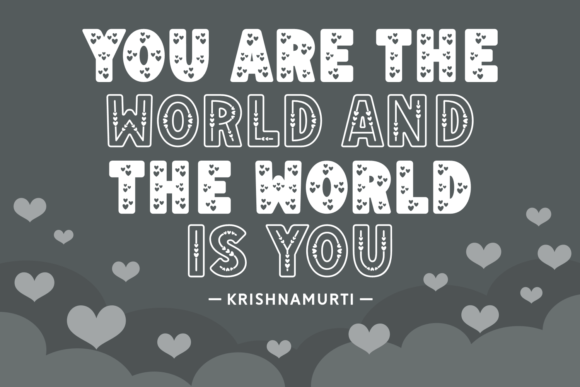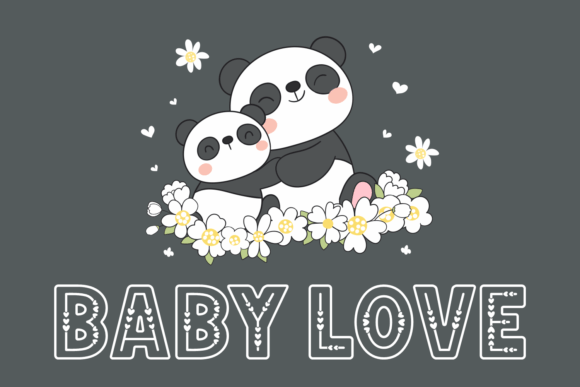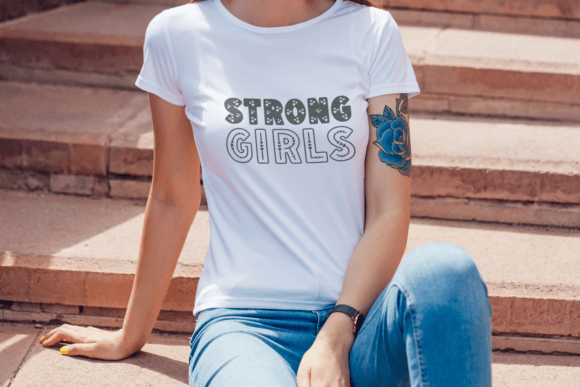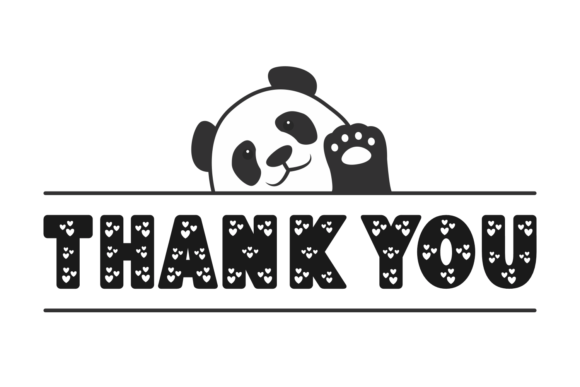
Introduction to Gracela Mersa Font Font
Fonts play a crucial role in design, and the Gracela Mersa Font font is a typeface that brings both character and versatility to any project. Whether you’re working on a branding project, a website, or a print design, the Gracela Mersa Font font offers a unique style that can elevate your work.
Gracela Mersa is a captivating decorative font with little heart details.
Enhance your creative projects with this lovely typeface that looks stunning on t-shirts, baby onesies, nursery decorations, greeting cards, and many more It includes two versions – regular and outline.
Key Features of Gracela Mersa Font Font
Why Choose Gracela Mersa Font Font?
The Gracela Mersa Font font is more than just a typeface – it’s a design tool that helps you communicate your message with style and clarity. Its unique character set and versatile design make it suitable for a wide range of applications, from elegant invitations to bold headlines.
With its carefully crafted letterforms and balanced proportions, the Gracela Mersa Font font ensures readability and visual appeal across all mediums.
What makes Gracela Mersa Font font special?
The Gracela Mersa Font font stands out with its unique design, exceptional readability, and versatility across various design applications.